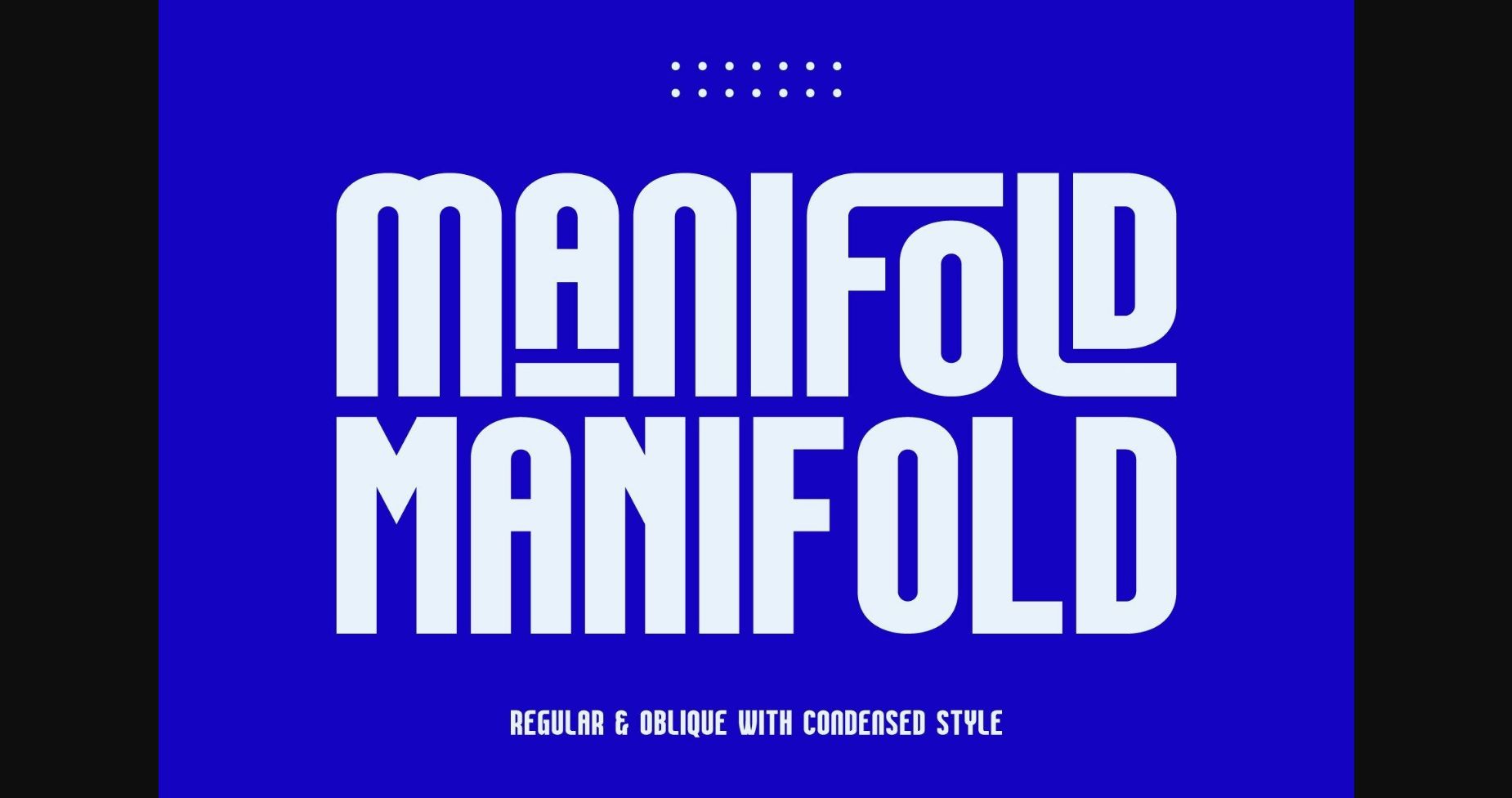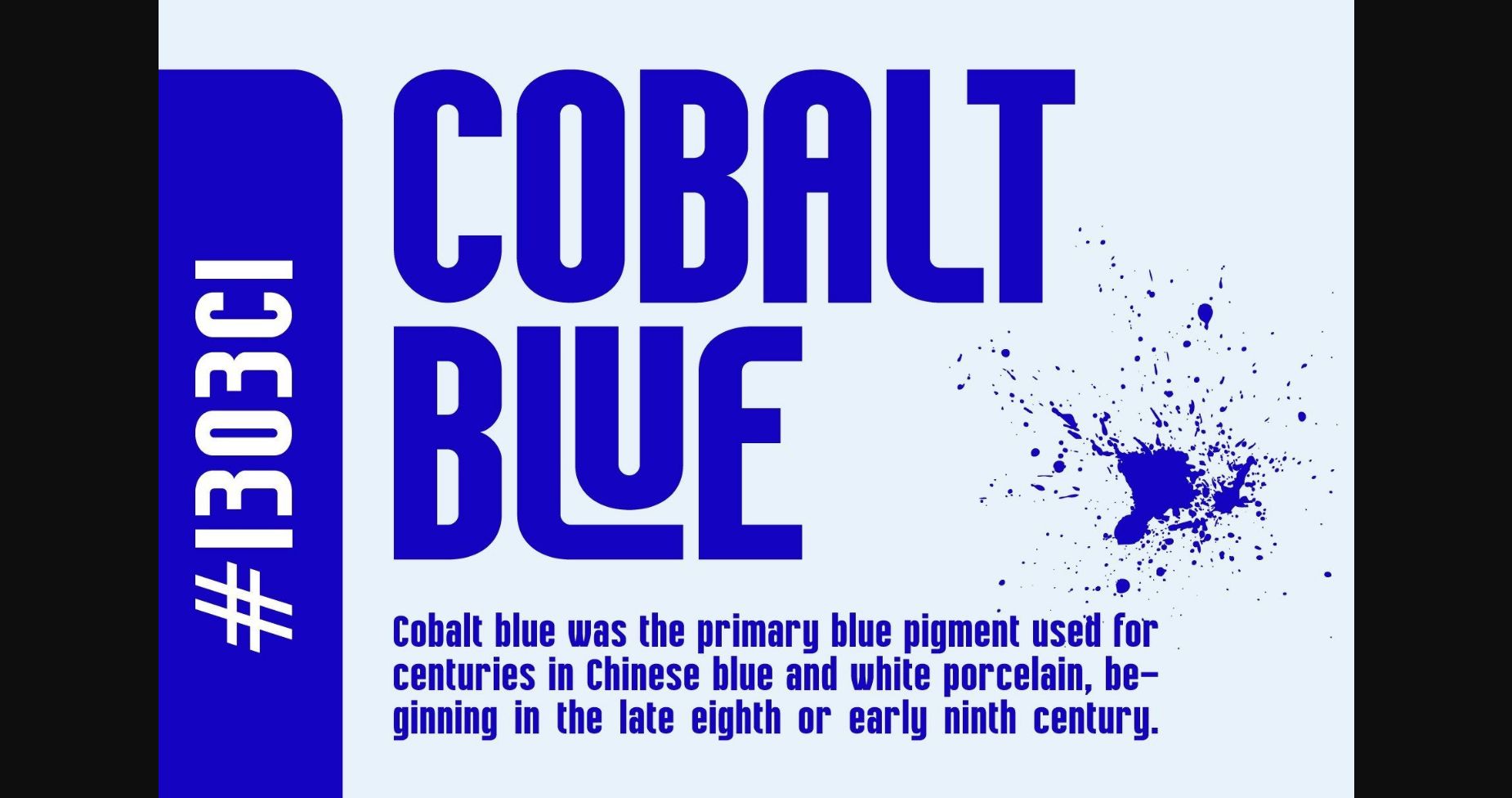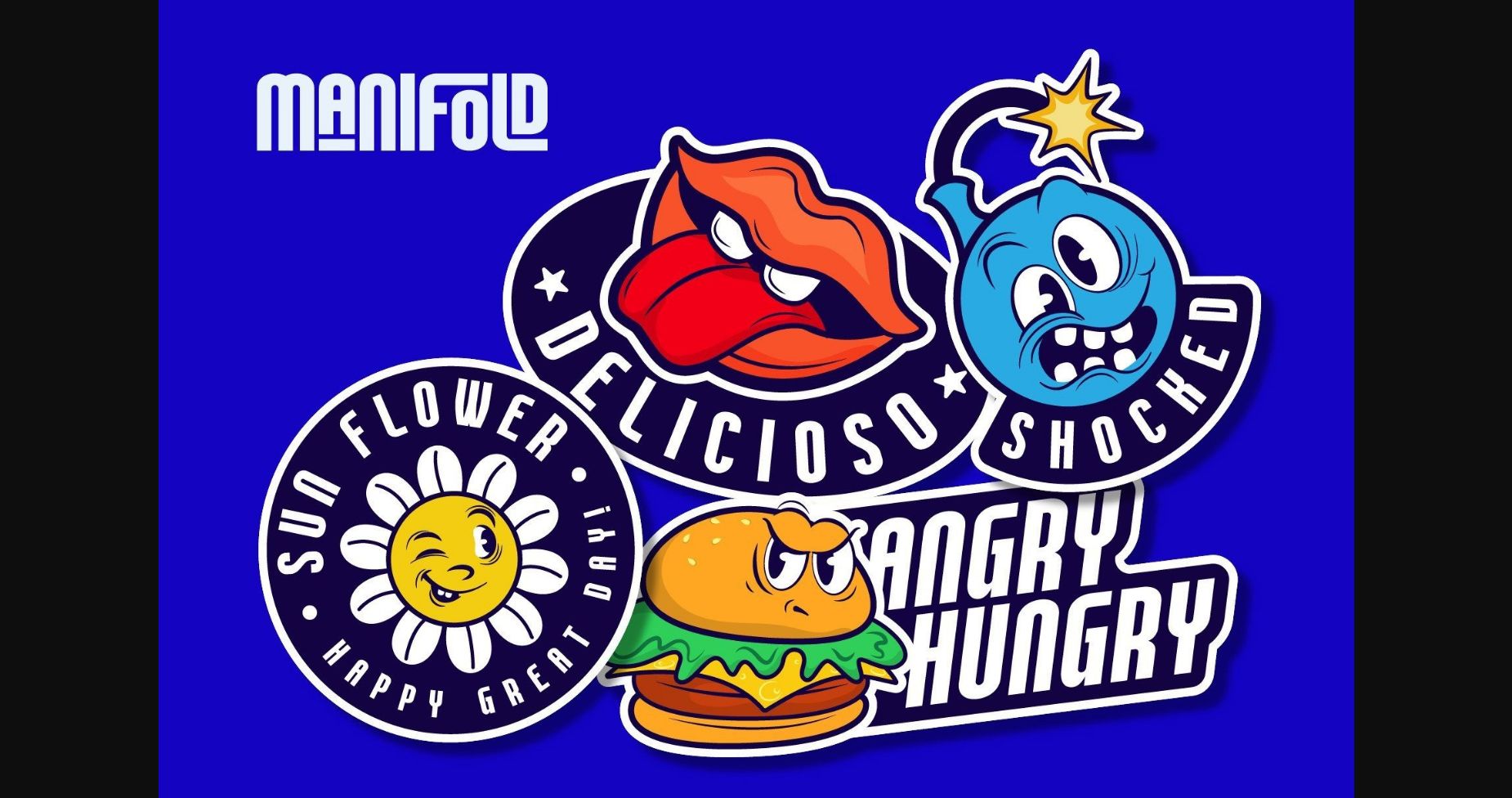
About Manifold Font
Manifold is a strong, geometric, and confident sans serif. Add this font to your favorite creative ideas and notice how it makes them come alive!